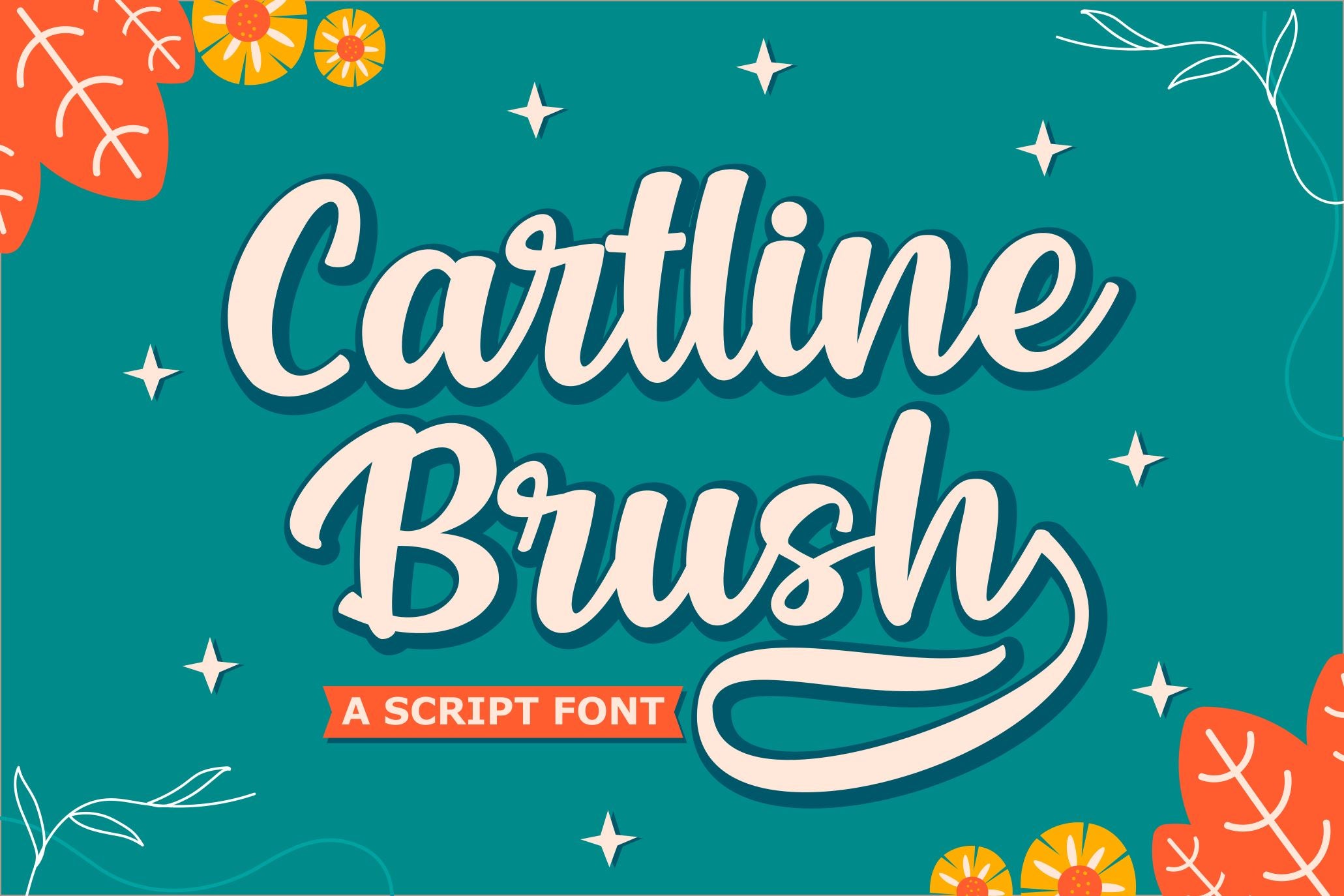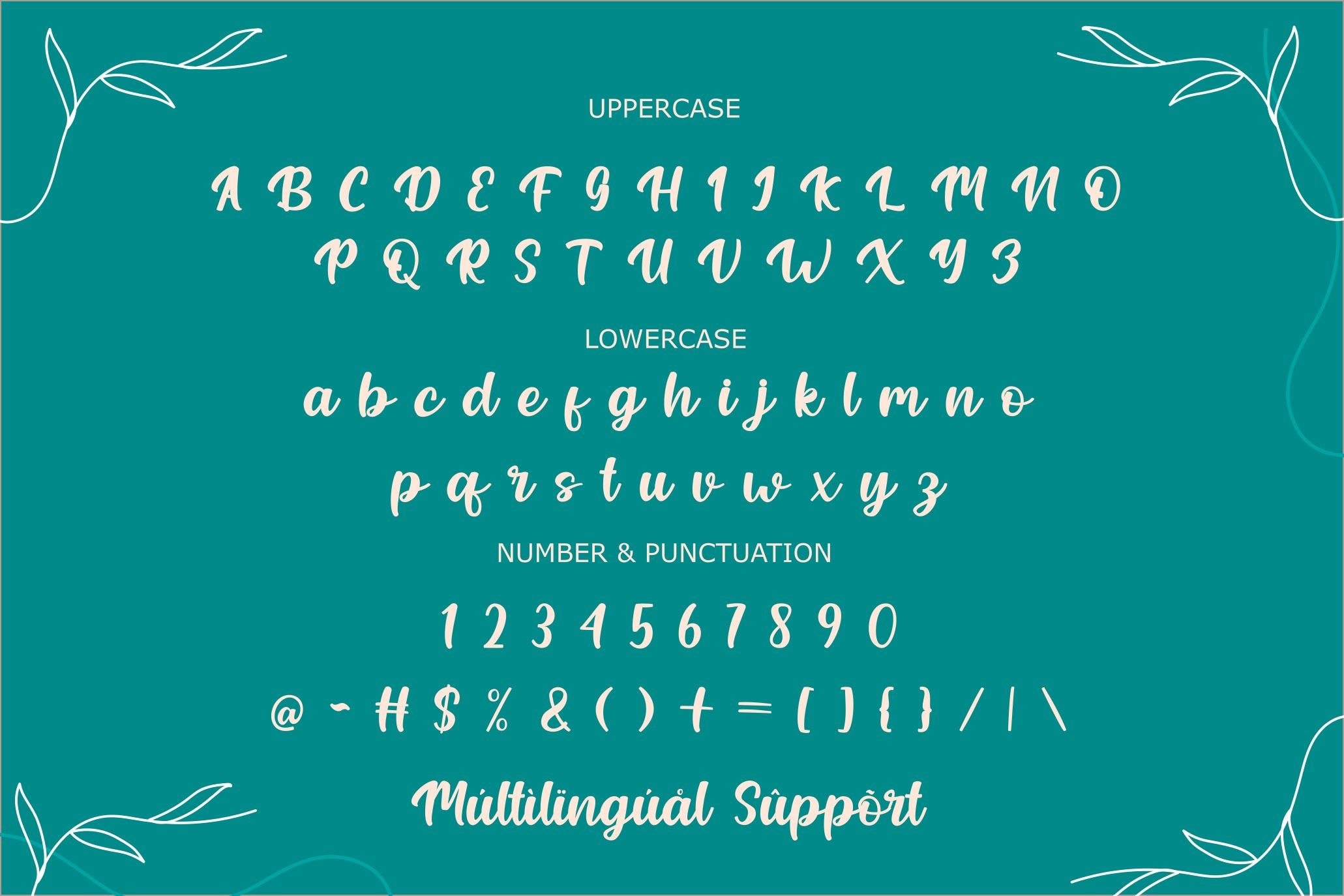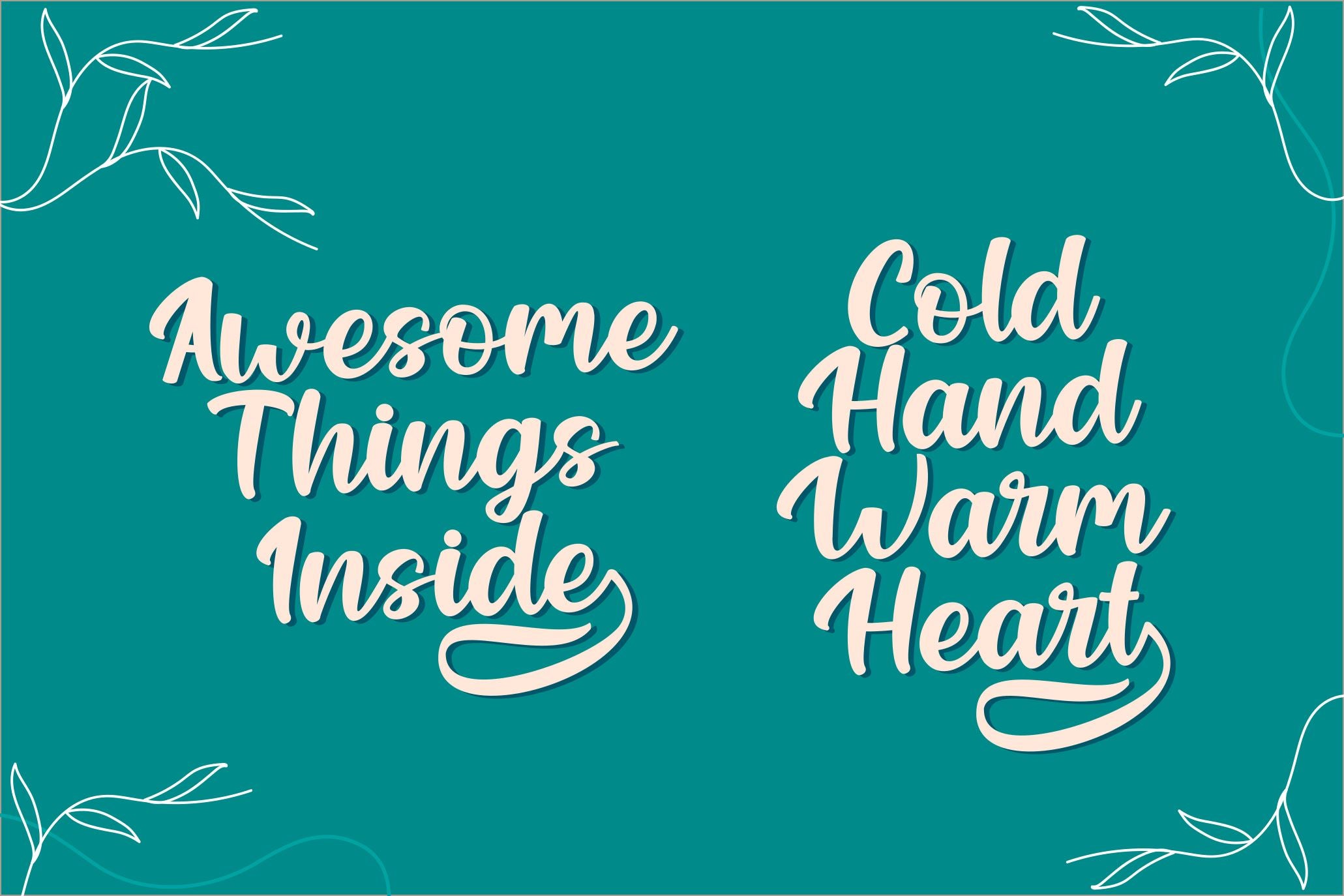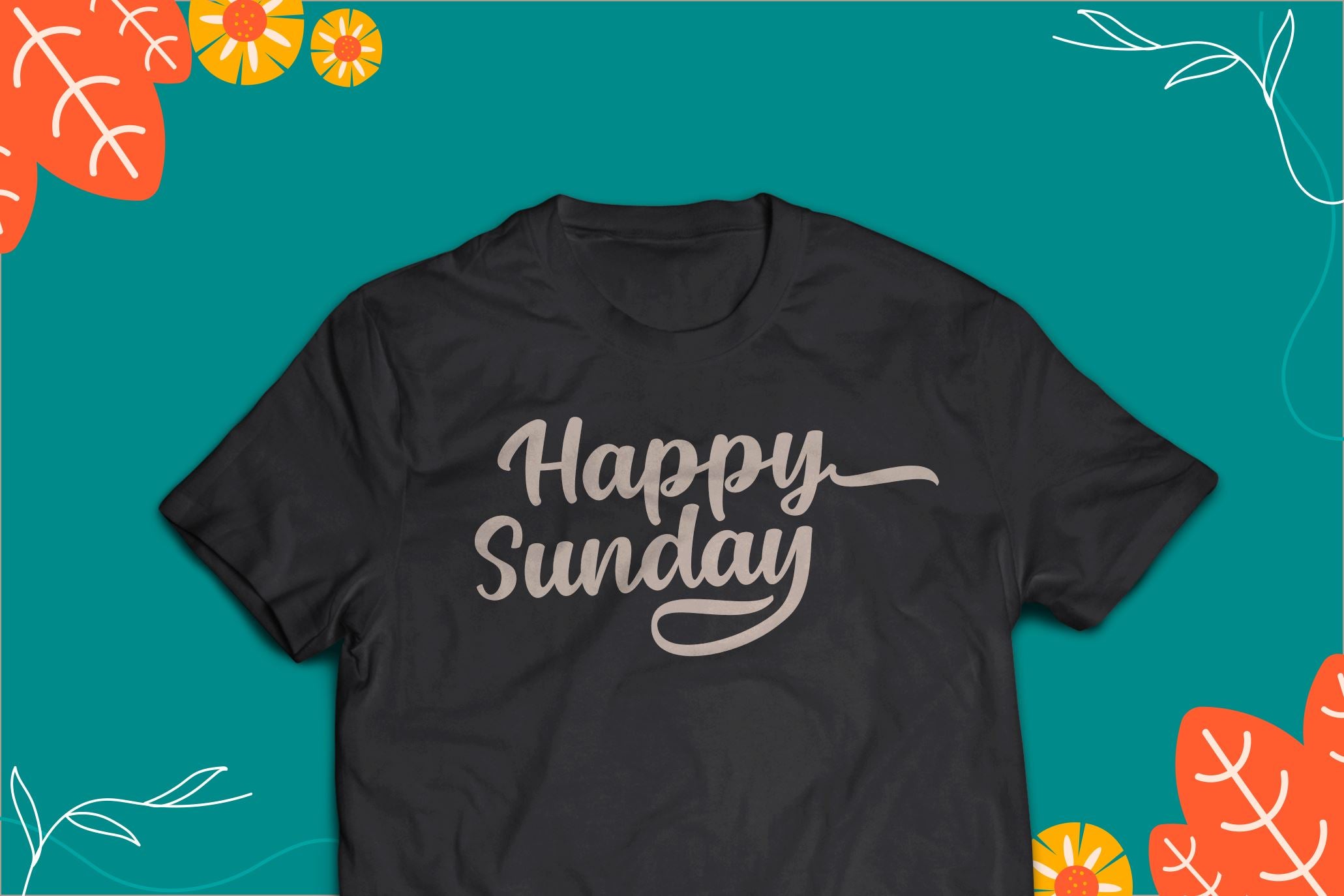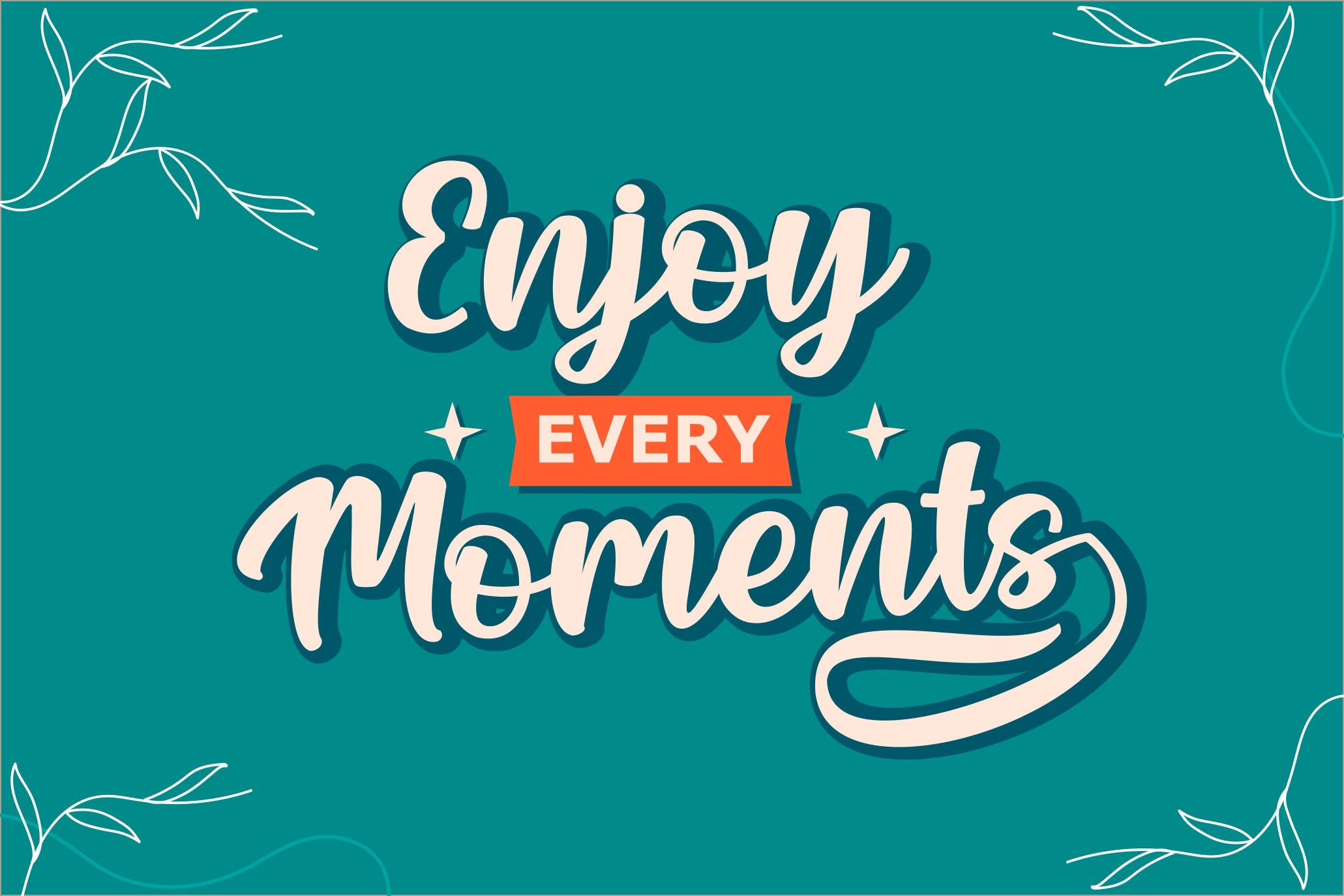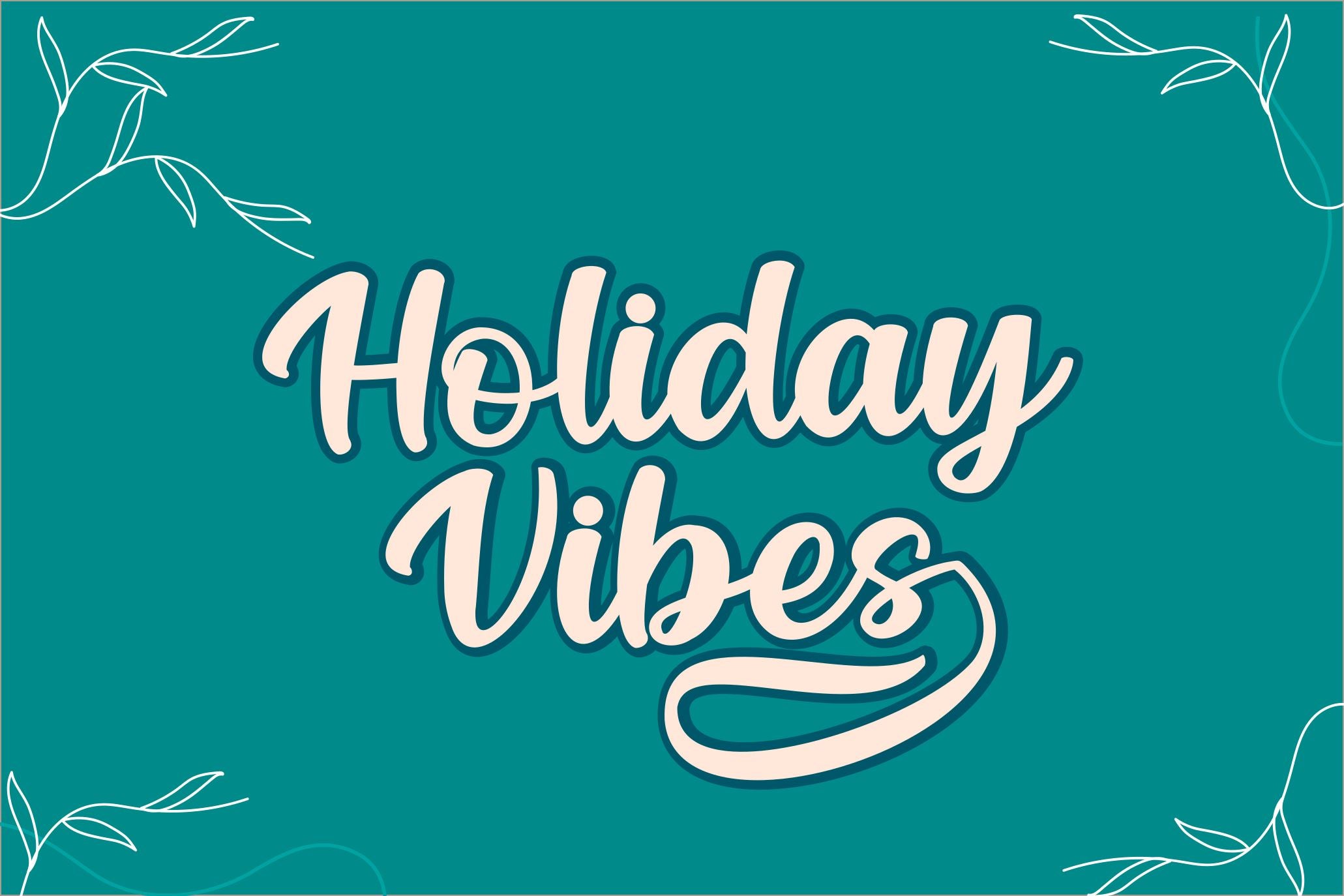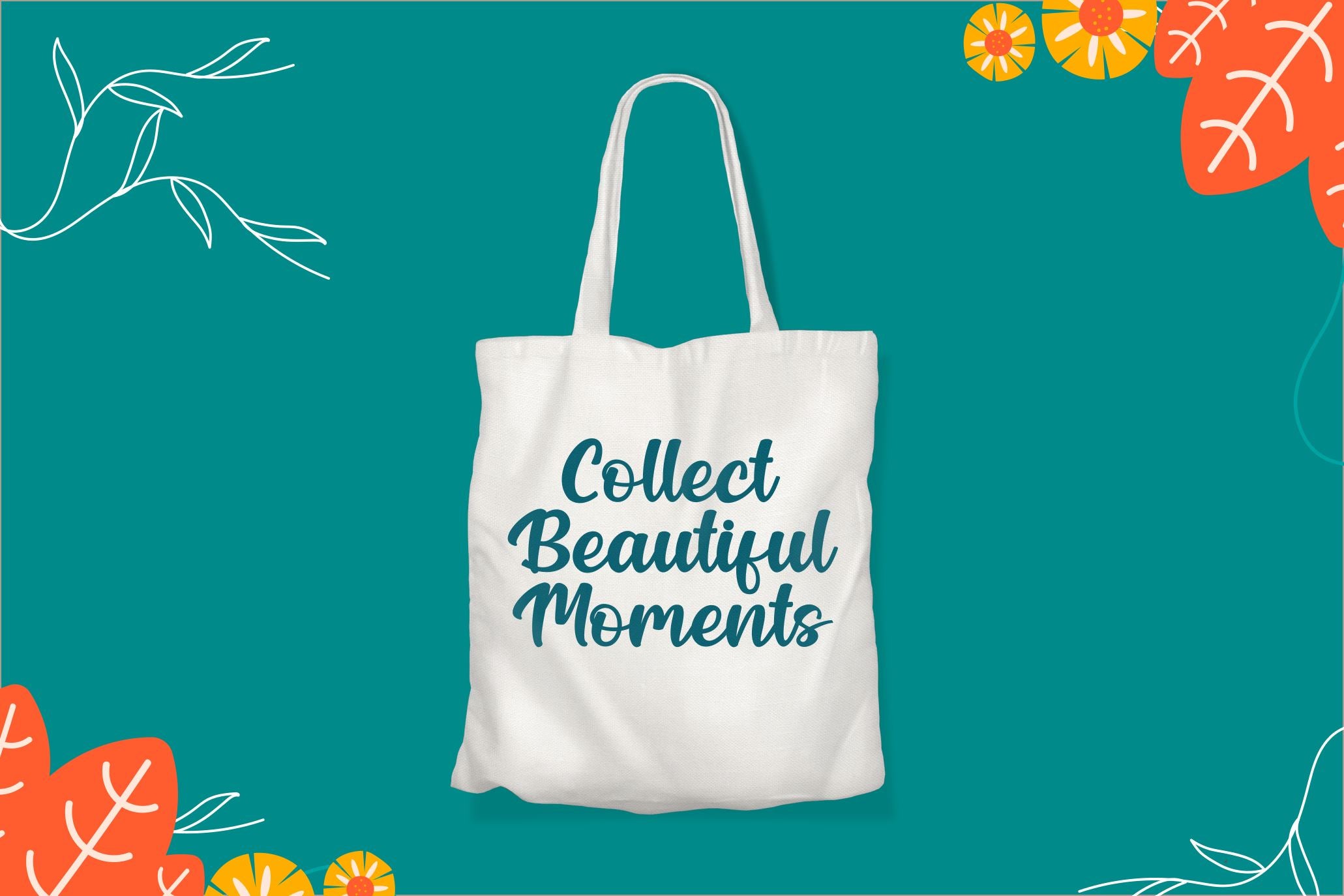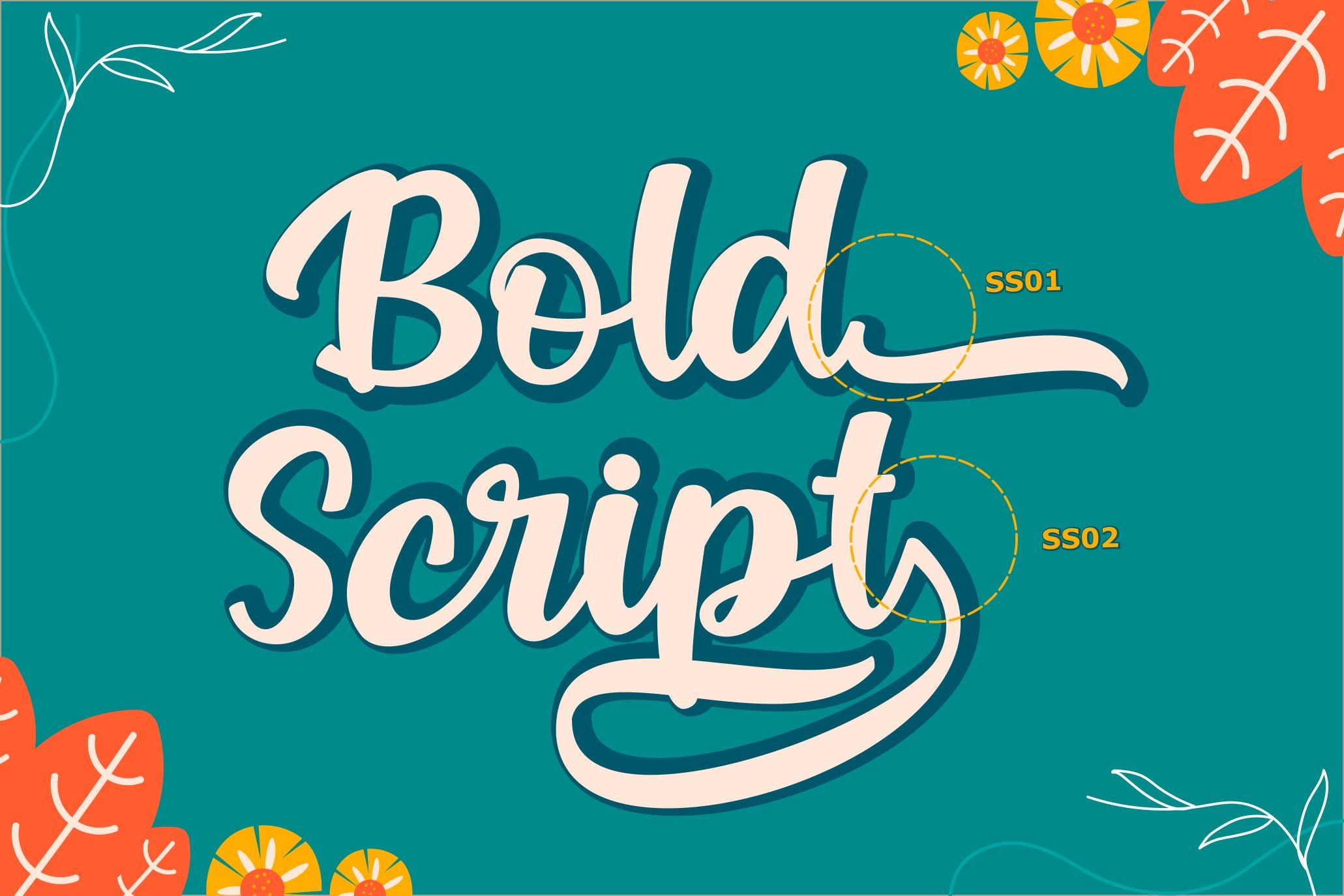
Cartline Brush is a cute and simple handwritten. This font is PUA encoded, which means you can access all of the glyphs with ease! File Included: Cartline Brush (OTF, TTF, WOFF, & WOFF2)